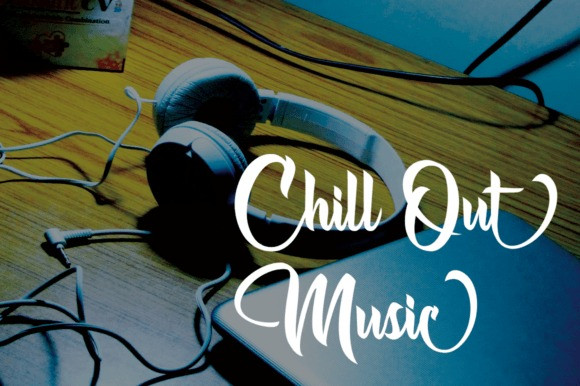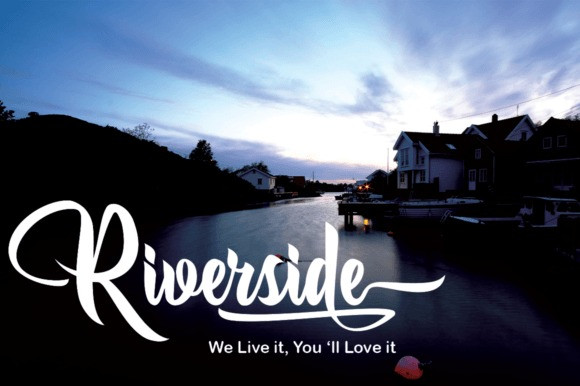
Faradilla Queen Font
Say hello to Faradilla Queen Script Font, is an enchanting handwritten font. This versatile script font has a wide spectrum of applications ranging from greeting cards to headlines and is guaranteed to add a romantic feel to your next project.